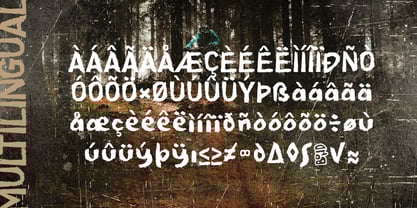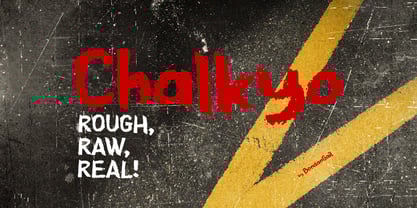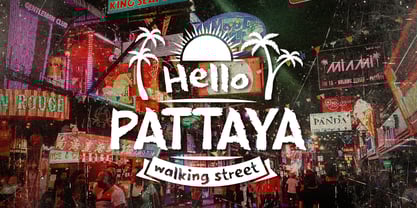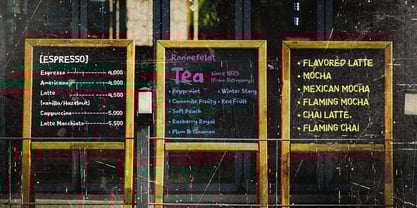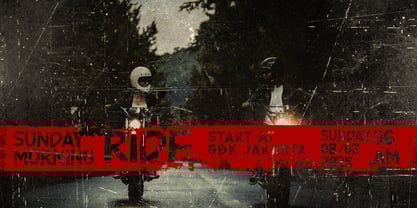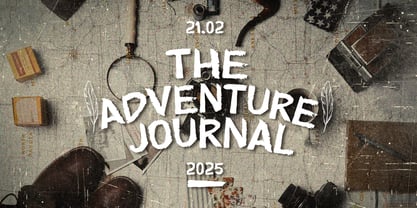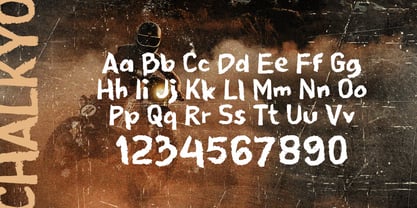
Chalkyo
La familia tipográfica Chalkyo fue diseñada por Wahyu Eka Prasetya, Bondan Gail Saputro y publicada por BondanGail. Chalkyo contiene 1 estilos.
Chalkyo is a bold, hand-drawn font with a rough and textured look. Its eroded edges and uneven strokes give it a raw, artistic feel, perfect for designs that need energy and personality. The font mimics chalk or paint, making it great for posters, branding, or eye-catching headlines.
With its playful irregularities and strong visual impact, Chalkyo stands out in both digital and print media. Its street-art-inspired style adds a creative, DIY touch, making it ideal for edgy, urban, or artistic projects.